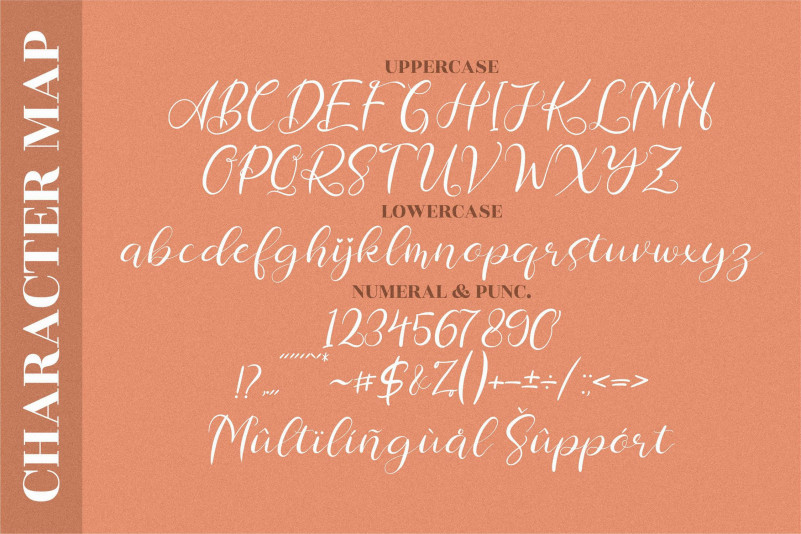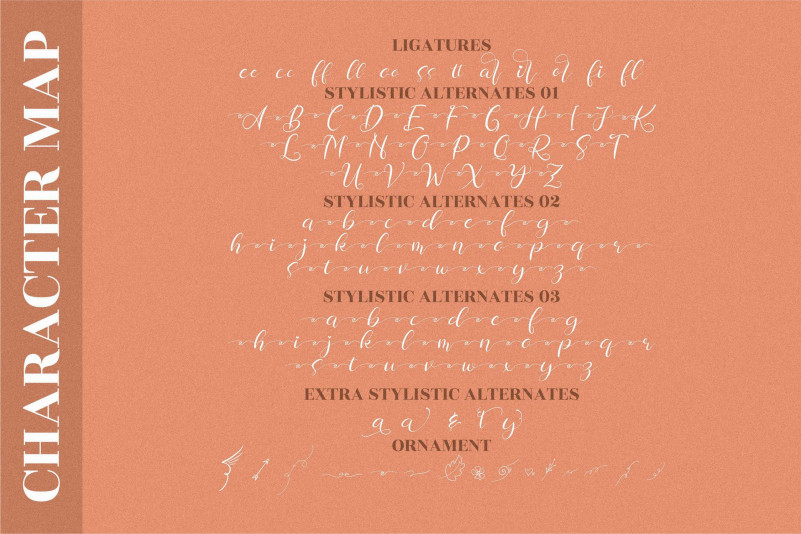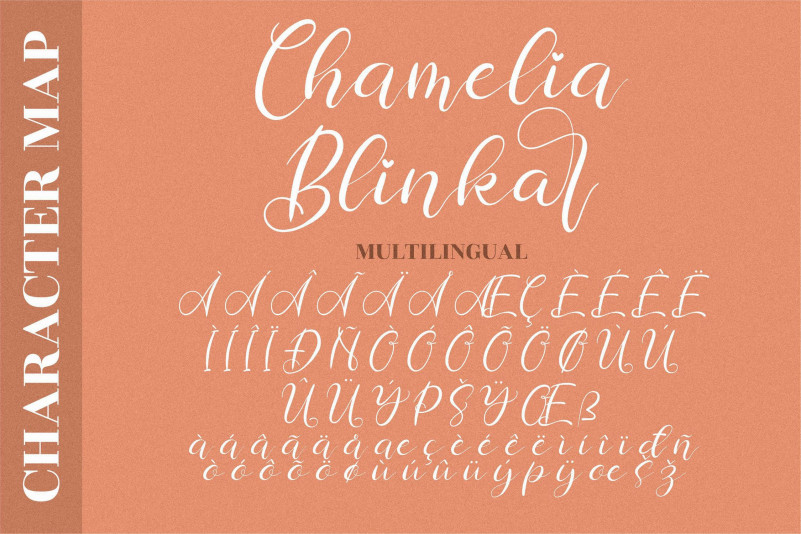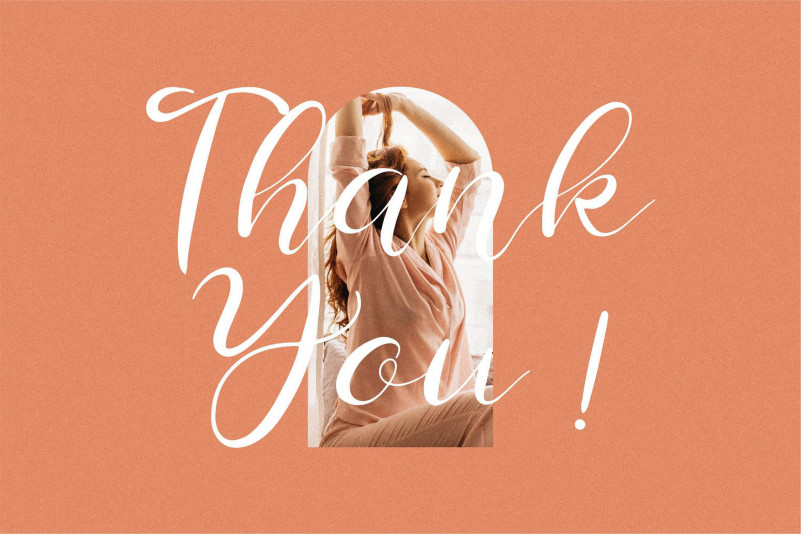
Chamelia Blinkar Calligraphy Font
This is a delicate and elegant handwritten font. Its distinct and well balanced letters make this font a masterpiece. Fall in love with its incredibly versatile style and use it to create spectacular designs!